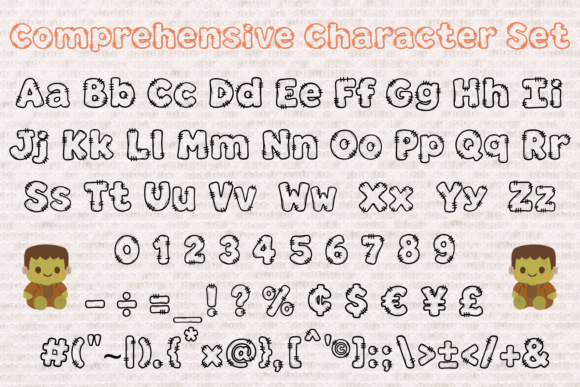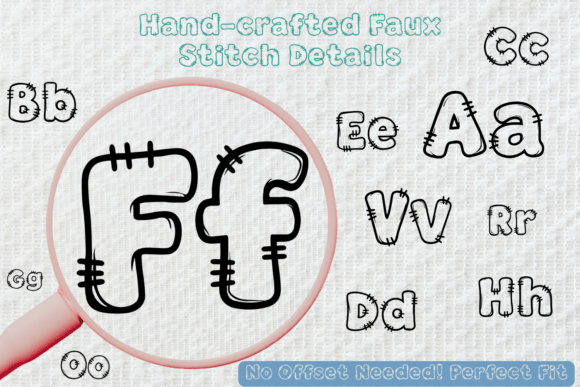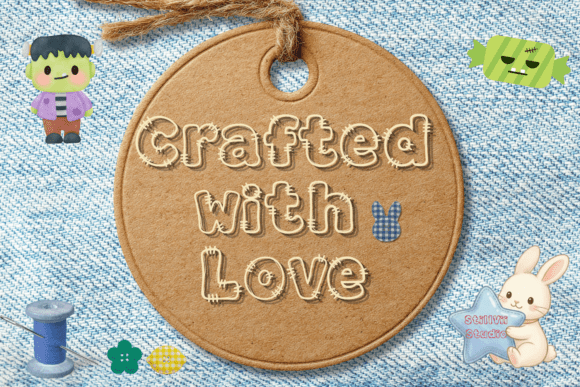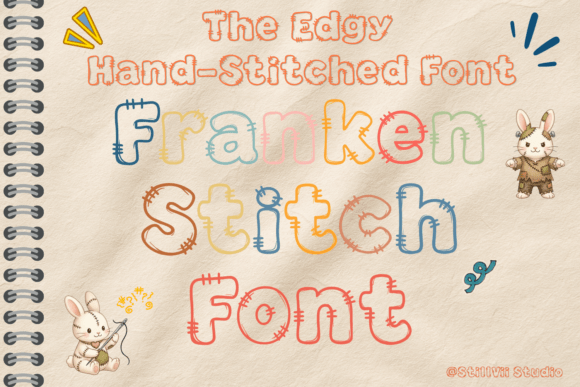
Introduction to Frankenstitch Font
Meet FrankenStitch, a premium hand-drawn faux stitch font meticulously crafted for your most creative projects.
Say goodbye to auto-generated brushes Every single stitch, curve, and edgy scratch in this typeface was painstakingly drawn by hand over many hours.
Frankenstitch Font offers exceptional quality and versatility, making it a valuable addition to your design toolkit. Whether you’re creating for personal projects or commercial use, Frankenstitch Font delivers professional results.